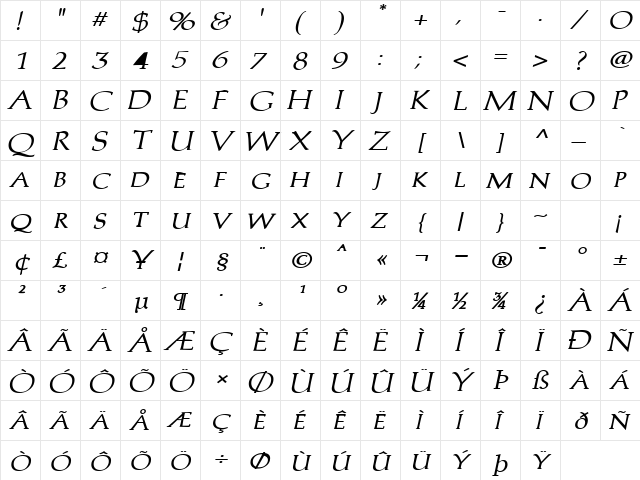
Trajans-Caps-Extended Bold Italic Font Preview
Design Context for Trajans-Caps-Extended Typeface
Trajans-Caps-Extended offers clean, dependable letterforms without strong stylistic allegiance, making it a practical choice for designers who need flexibility. Its italic angle brings a sense of urgency and motion to the letterforms. The heavy weight commands attention and anchors typographic hierarchies.